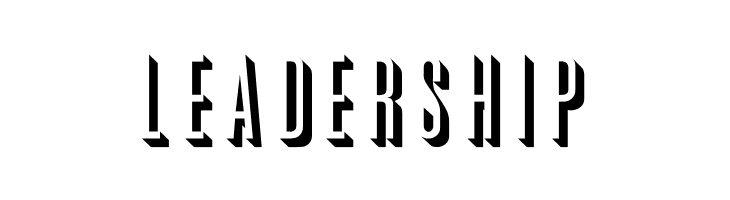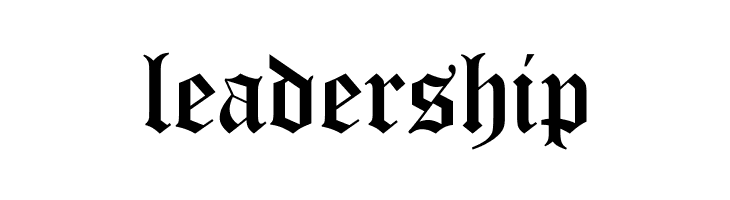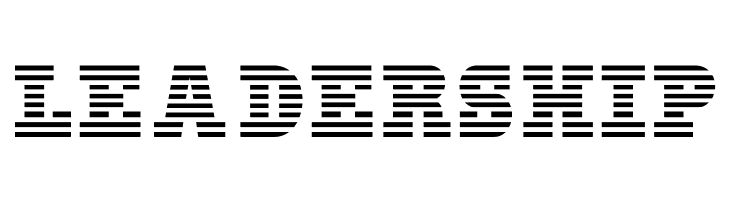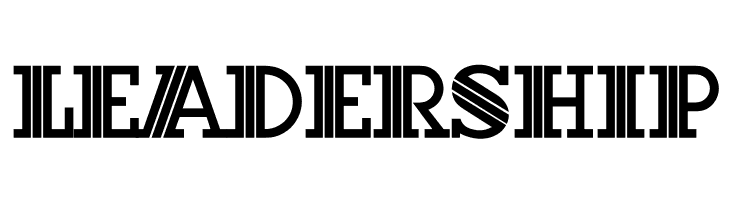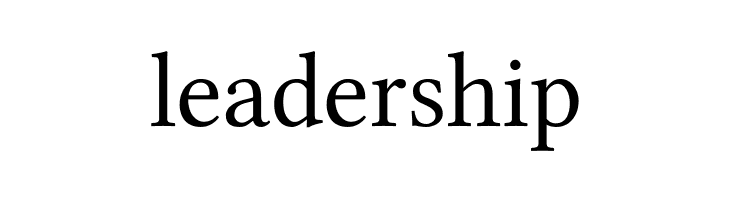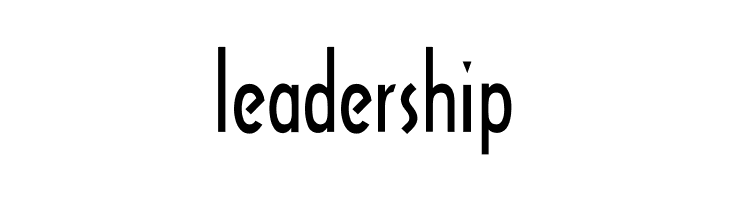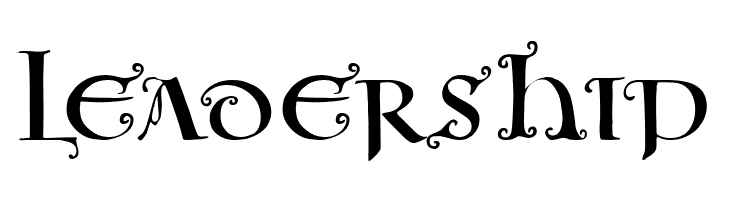
A bold, 3D serif font with a strong, embossed appearance.
A clean, modern sans-serif font with excellent readability and versatility.
A bold, 3D font with strong shadow effects, perfect for impactful designs.
A bold, striped font with a modern, geometric style.
A modern sans-serif font with clean lines and balanced proportions.
A bold, three-dimensional font with sharp angles and a modern aesthetic.
A traditional blackletter font with ornate, angular letterforms and high contrast.
A modern sans-serif font with clean lines and a slightly condensed width.
A modern sans-serif font with clean lines and a slightly condensed style.
A bold, modern sans-serif font with clean, geometric lines.
A bold, decorative font with a unique horizontal striped pattern.
A modern, tall, and narrow font with elegant, elongated characters.
A classic serif font with elegant strokes and balanced structure.
A bold, classic serif font with strong strokes and elegant serifs.
A classic serif font with elegant strokes and refined serifs.
A classic serif font with bold, elegant strokes and balanced readability.
A modern, clean sans-serif font with uniform stroke width and excellent readability.
A modern, clean sans-serif typeface with balanced proportions and consistent stroke width.
A classic serif font with elegant strokes and balanced proportions.
A classic serif font with elegant proportions and versatile applications.
A bold serif typeface with strong, authoritative strokes and sharp serifs.
A bold serif typeface with high contrast and pronounced serifs, ideal for impactful headlines.
A classic serif font with elegant proportions and refined serifs.
A bold, classic serif font with elegant strokes and strong readability.
A classic serif font with elegant strokes and a professional appearance.
A bold serif font with high contrast and classic elegance.
A classic serif font with elegant and well-proportioned characters.
A bold, slab serif font with a vintage yet modern appeal.